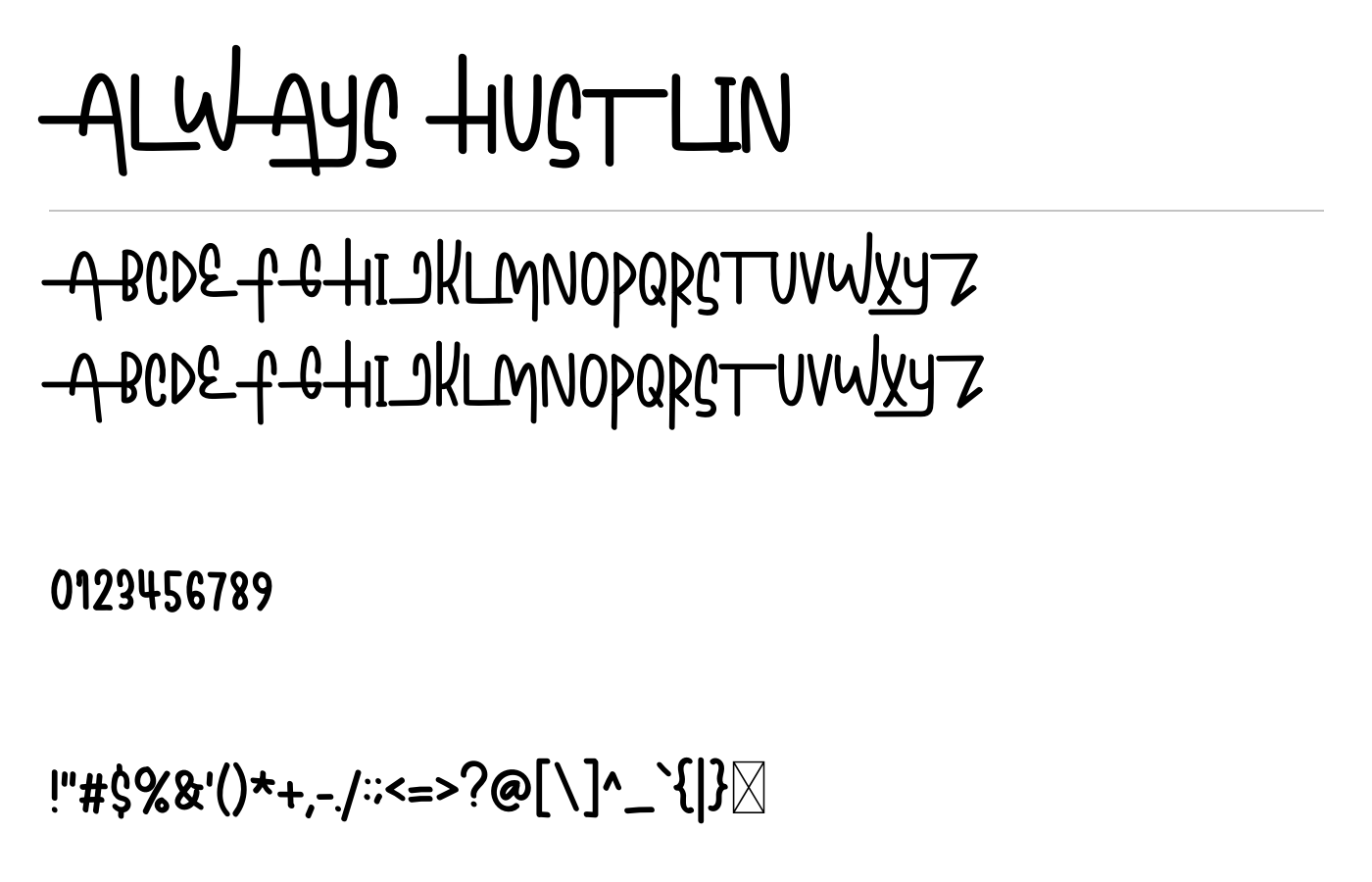
Always Hustlin is a quirky, hand-drawn sans serif font with a playful and energetic personality. Its tall, narrow letterforms feature unique, whimsical strokes and crossing lines that give it a casual, urban vibe—ideal for youthful, creative projects. This font works best in logos, posters, and branding where a bold, informal style is needed to convey fun and individuality.
Always Hustlin Font